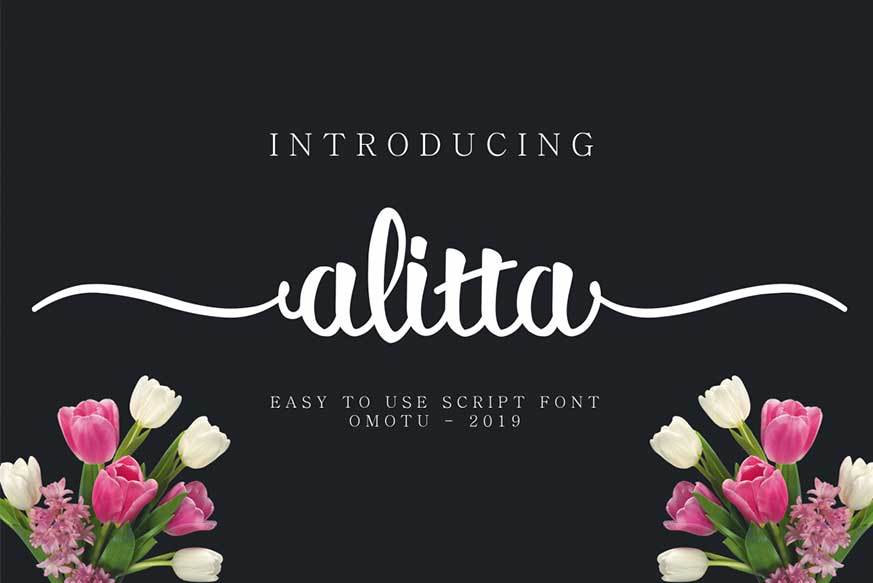
Alitta Font
Alitta font is casual script that is very suitable for photography, watermark, social media posts, advertisements, logos & branding, invitation, product designs, label, stationery, wedding designs, product packaging, special events or anything that need handwriting taste.